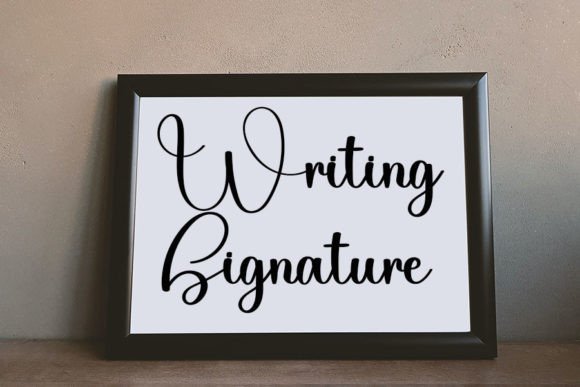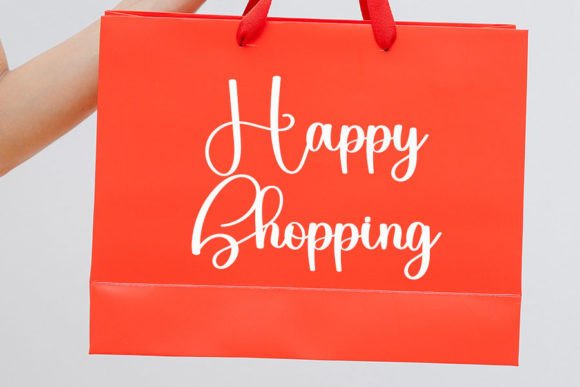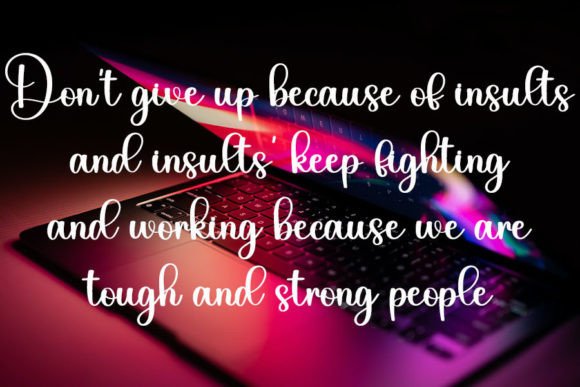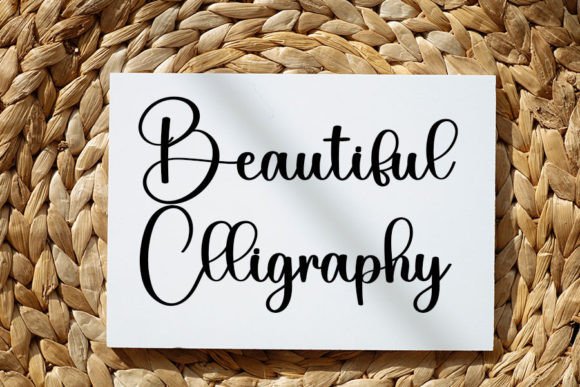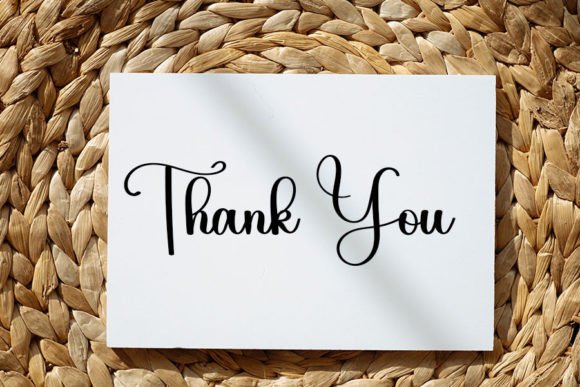
Radish Font
About Radish Font
Radish, a sweet and beautiful handwritten font, introduces a touch of luxury and charm to your design projects. With characters gracefully dancing along the baseline, this font adds a spark of sophistication to any creative endeavor.
The allure of Radish lies in its handwritten style, exuding sweetness and beauty. The characters flowing dynamically along the baseline give the font a lively quality, making it ideal for projects that seek a touch of luxury.
Consider employing Radish across a variety of design applications, from branding and product packaging to invitations and social media graphics. Its versatile nature allows it to seamlessly adapt to different contexts, enriching each project with a luxurious spark.
The handwritten elegance of Radish extends seamlessly to both digital and print materials. Whether enhancing the visual appeal of a website or adding flair to printed materials like invitations and posters, Radish stands out as a font that elevates the overall aesthetic.
In essence, Radish is more than just a font; it’s a design element that injects your projects with a sweet and luxurious touch. Embrace the charm of Radish and let it add a spark of beauty to your design creations, making them stand out with an air of sophistication.